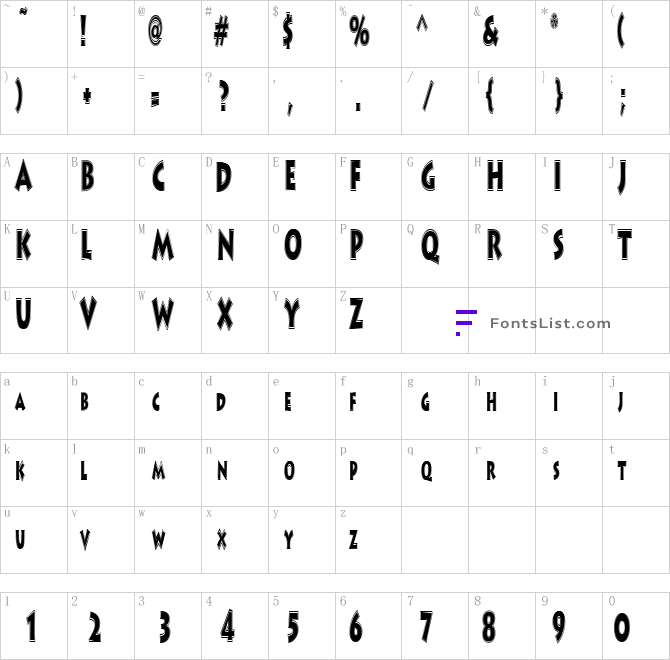
- Font Name:Artist ttstd
Artist-Regular-ttstd.ttf is a very beautiful artistic font, Artist-Regular-ttstd.ttf is widely used in the design and printing of various books and pictures,Artist-Regular-ttstd.ttf has a strong visual impact,Artist-Regular-ttstd.ttf is a commonly used font in newspapers, magazines and books, and is used in posters, e-commerce Poster design, store design, logo design, font design and other fields.Artist-Regular-ttstd.